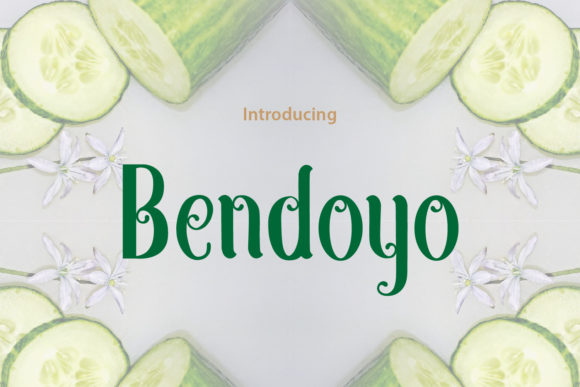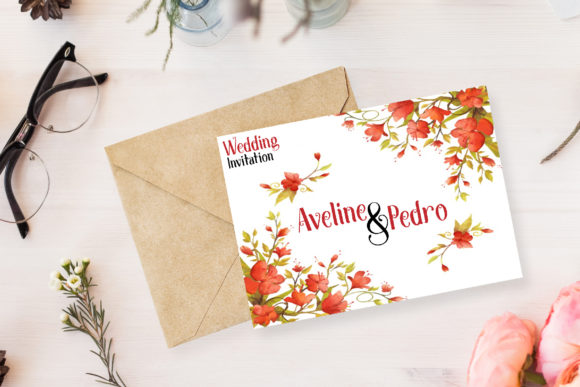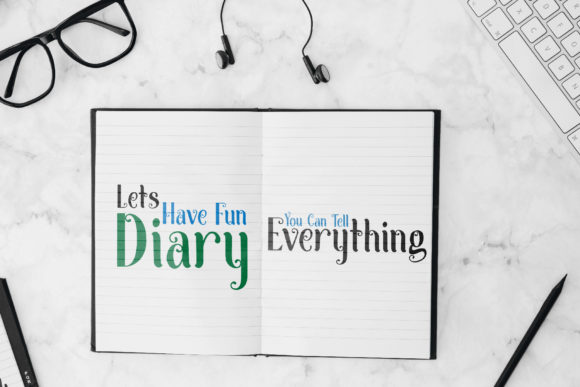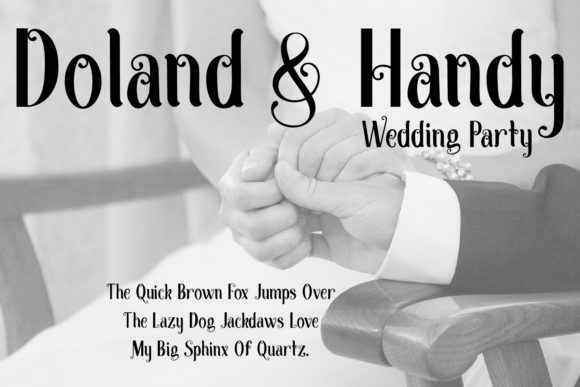
Bendoyo Font
About Bendoyo Font
Bendoyo is a stylish font, fitting to both formal and non-formal contexts. Carefully handcrafted to become a true favorite, Bendoyo looks wonderfully down-to-earth, readable and, ultimately, incredibly versatile.